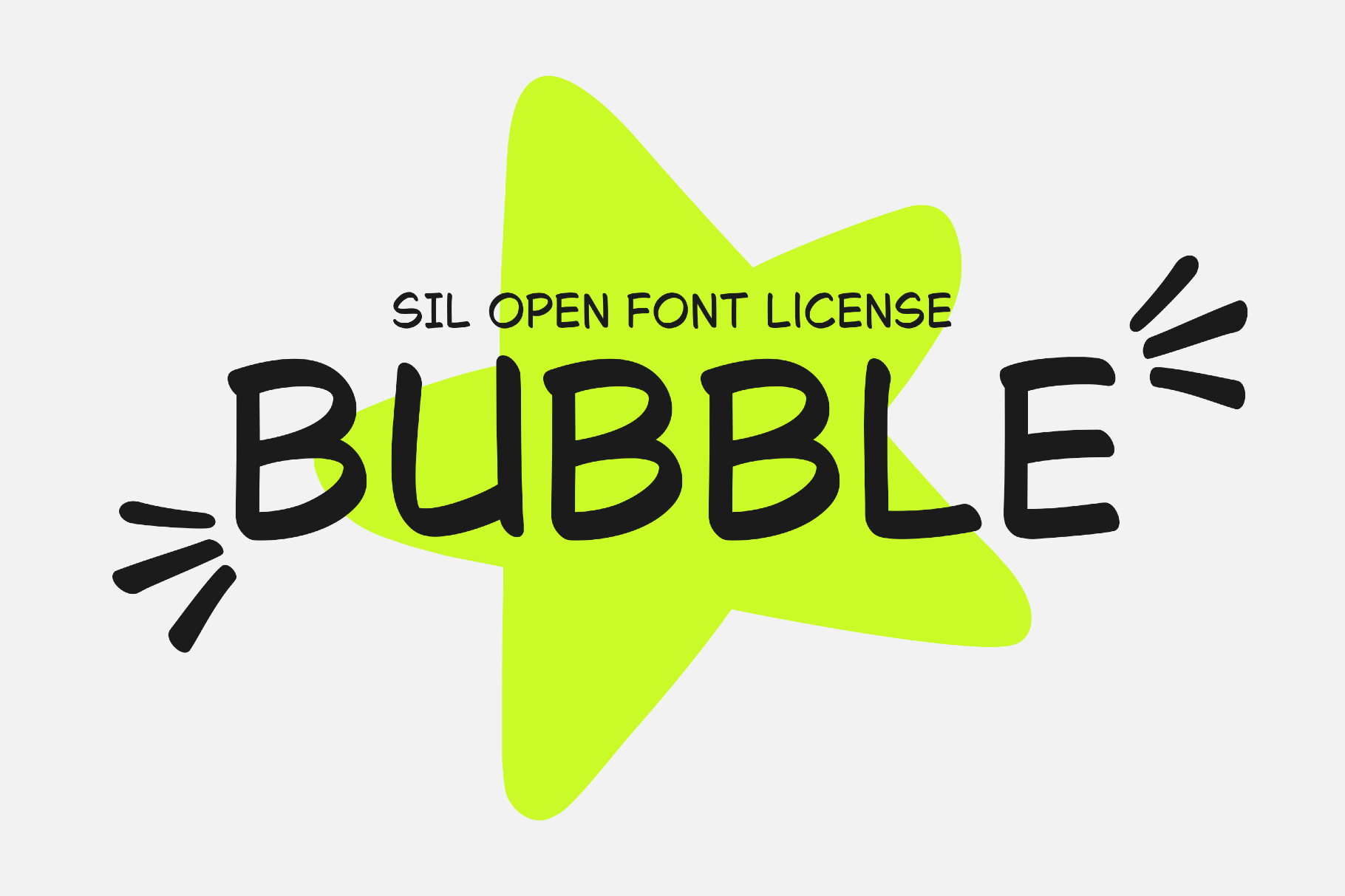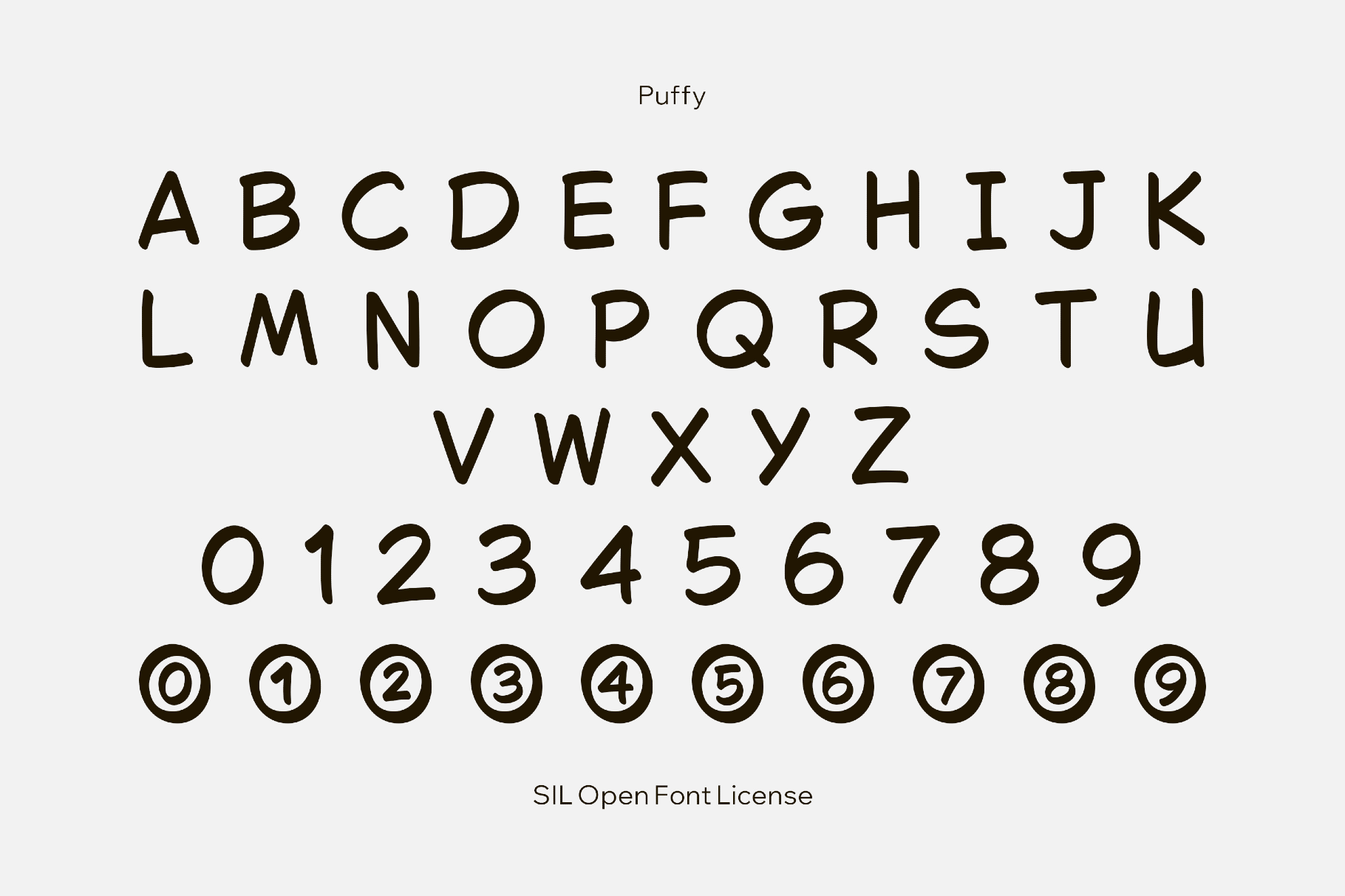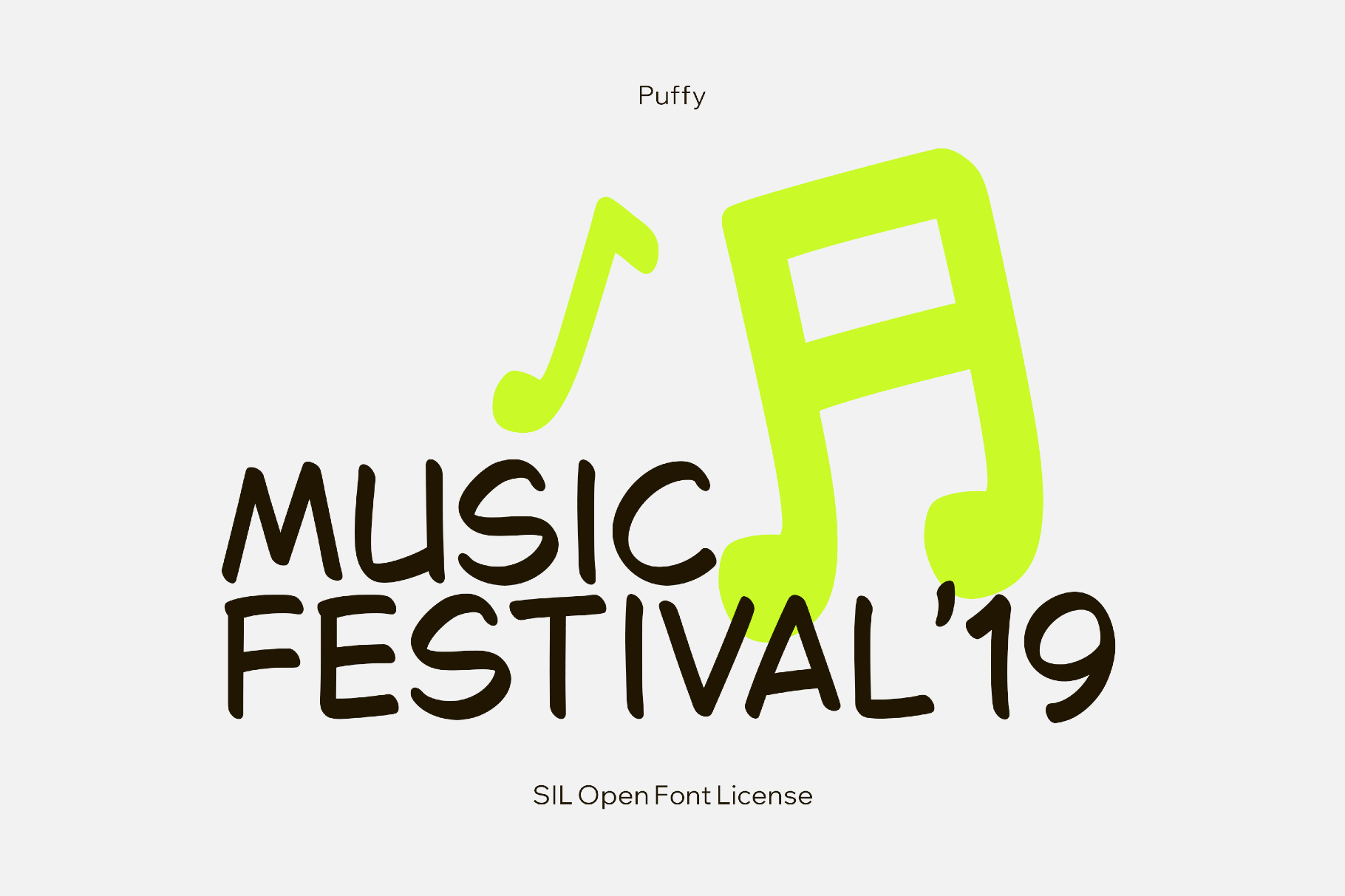
Bubble Sans
Bubble Sans is a comic-book font that draws on the look of classic 2000s speech-bubble lettering and redraws it into a tidy, bubble-edged typography. It's made practical for webcomics, webtoon panels, sound effects, subtitles, kids’ books, activity pages, game UIs, menu prompts, poster headlines, flyers, stickers, and merch typography.
- Uppercase letters only.
- International characters with multilingual coverage across extended Latin and extended Cyrillic ranges, plus Armenian and Greek scripts.
- Additional runic script set.
- Mathematical symbols and metrics.